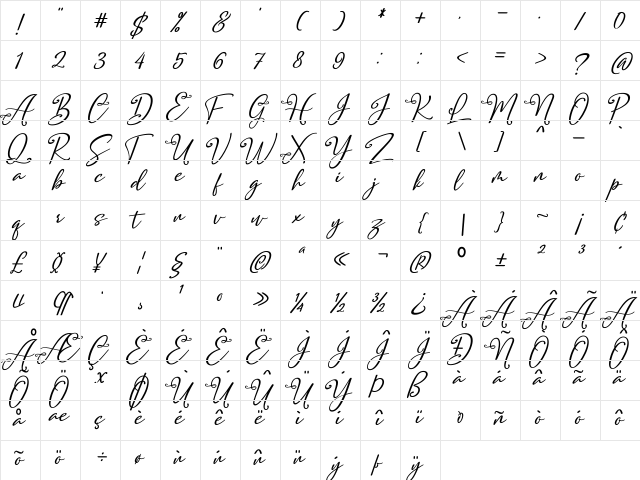
Lovelyou Demo Regular
| Foundry | FADHIL |
| Designer | Fadhil Aqsa |
Design Context for Lovelyou Demo Typeface
Lovelyou Demo is a composed and adaptable typeface that performs quietly and consistently across a wide range of design contexts.